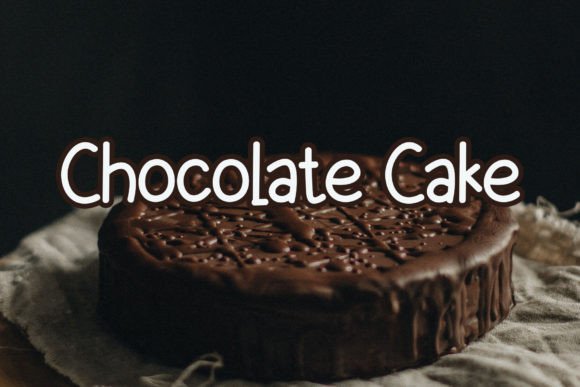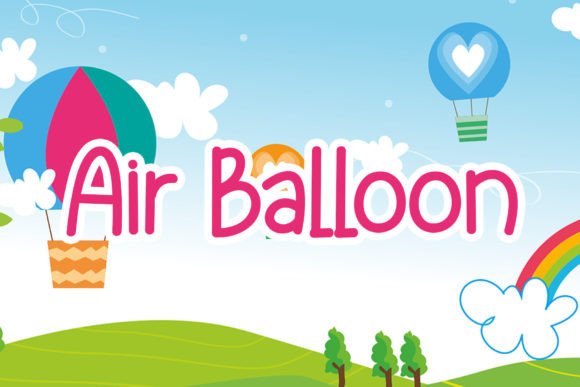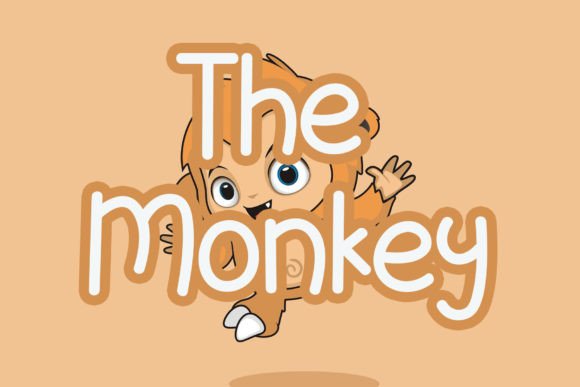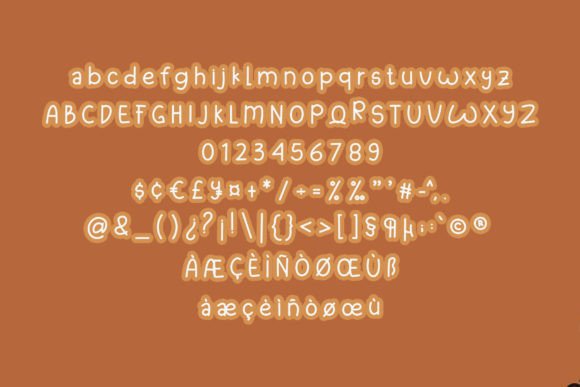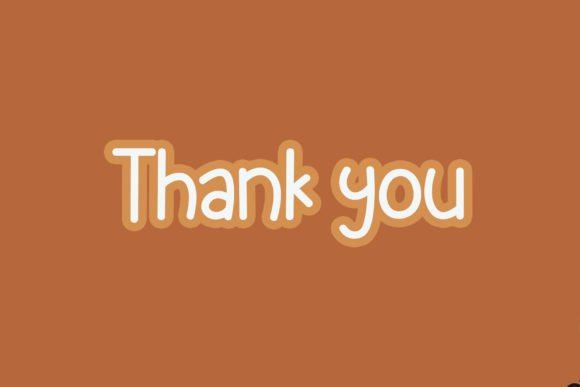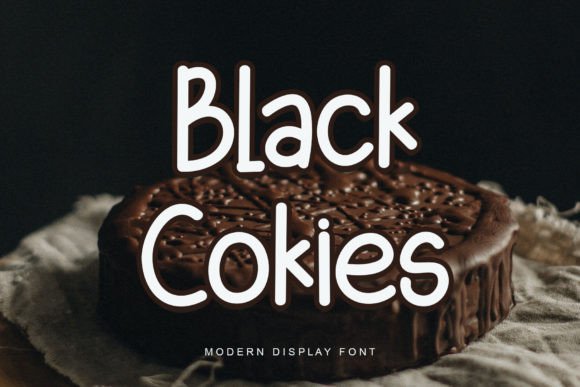
Discover the Charm of Black Cokies Font: A Sweet and Friendly Handwritten Delight
Are you a designer or crafter looking for a font that adds a touch of warmth and personality to your projects? Look no further than Black Cokies Font, a sweet and friendly handwritten font that’s perfect for a variety of creative endeavors. In this article, we’ll dive into the world of Black Cokies, exploring its features, benefits, and uses, and show you why it’s an ideal choice for your next design project.
What is Black Cokies Font?
Black Cokies Font is a beautiful, handwritten font that’s characterized by its fresh and neat appearance. This lovely font is designed to bring a sense of fun and playfulness to your designs, making it perfect for projects that require a personal touch. Whether you’re creating wedding invitations, greeting cards, or other decorative items, Black Cokies Font is sure to impress.
Key Features of Black Cokies Font
So, what makes Black Cokies Font so special? Here are some of its key features:
- Handwritten style: Black Cokies Font boasts a genuine, handwritten look that’s both sweet and friendly.
- Fresh and neat: The font’s clean and crisp lines make it easy to read and visually appealing.
- Versatile: Black Cokies Font is suitable for a wide range of design projects, from wedding invitations to social media graphics.
Uses for Black Cokies Font
Black Cokies Font is an incredibly versatile font that can be used in a variety of design projects. Here are some ideas to get you started:
- Wedding invitations: Add a touch of romance and whimsy to your wedding invitations with Black Cokies Font.
- Greeting cards: Create beautiful, one-of-a-kind greeting cards for special occasions like birthdays, anniversaries, and holidays.
- Social media graphics: Use Black Cokies Font to add a personal touch to your social media graphics, such as quotes, promotions, and announcements.
- Branding and packaging: Black Cokies Font can also be used in branding and packaging design to add a friendly, approachable feel to your products.
Why Choose Black Cokies Font?
With so many fonts available, why choose Black Cokies Font? Here are just a few reasons:
- Unique and distinctive: Black Cokies Font has a unique, handwritten style that sets it apart from more traditional fonts.
- Easy to read: Despite its playful appearance, Black Cokies Font is easy to read, making it perfect for body text and captions.
- Customizable: Black Cokies Font can be customized to suit your design needs, allowing you to adjust the size, color, and style to fit your project.
Tips for Using Black Cokies Font
To get the most out of Black Cokies Font, here are a few tips to keep in mind:
- Pair with complementary fonts: Combine Black Cokies Font with complementary fonts to create visual interest and hierarchy in your designs.
- Experiment with colors: Black Cokies Font looks great in a variety of colors, so don’t be afraid to experiment and find the perfect hue for your project.
- Use it sparingly: While Black Cokies Font is beautiful, it can be overwhelming if overused. Use it sparingly to create emphasis and add visual interest to your designs.
Black Cokies Font is a sweet and friendly handwritten font that’s perfect for designers and crafters looking to add a touch of personality to their projects. With its fresh and neat appearance, versatile uses, and easy-to-use design, Black Cokies Font is an excellent choice for a wide range of creative endeavors. Whether you’re creating wedding invitations, greeting cards, or social media graphics, Black Cokies Font is sure to delight. So why not give it a try and see the charm of Black Cokies Font for yourself?